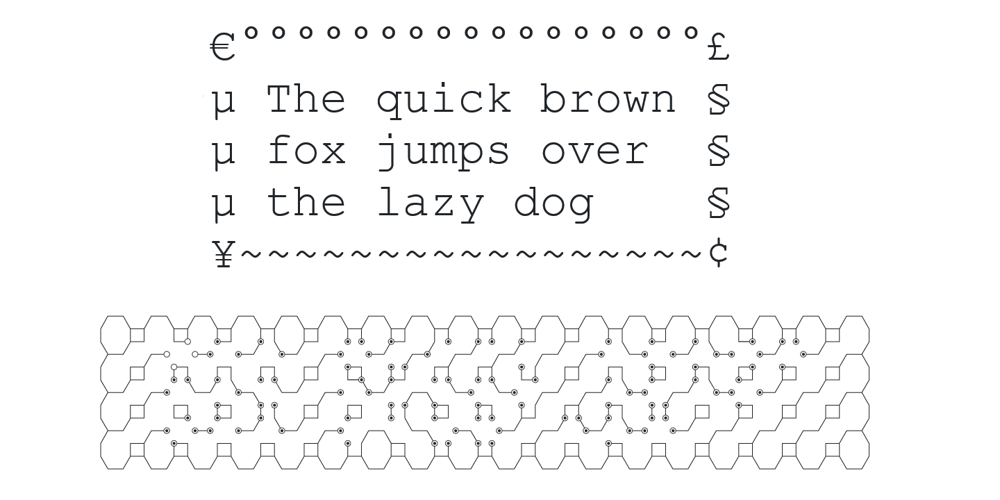
Hex Braille Font Family was designed by Michel Kern and published by Echopraxium. Hex Braille contains 1 styles and family package options. The purpose of this monospace font is to display braille in an original although rather steganographic way.Its glyphs are built from a flat hexagon which can be read as 3 rows of 2 vertices (i.e. regular braille glyph grid). The initial design is illustrated by glyphs ‘ç’ (no dot) and ‘û’ (6 dots) as shown by poster 5. Glyphs are connected to each other, thus 6 connections for each hexagon (2 on left/right and 4 on top/bottom). In the final design many diagonal segments of the hexagon were removed for esthetical reason. Text is displayed not as a honeycomb but as a lattice instead which mixes hexagons, squares and “irregular convex octagons” (mostly unclosed), the design favored squares over octagons. The whole slightly resembling a PCB.Text can be framed with 3 sets of Frame glyphs (as shown in Poster 4): Octagonal: { €, °, £, µ, §, ¥, ~, ¢ } which can be mixed with Rectangular High Rectangular Low: { è, é, ê, ï, î, à, â, ä } Rectangular High: { Â, ù, Ä, Ê, Ë, ô, õ, ë } which can be mixed with Octagonal NB: When using Frame glyphs, it is advised to show Pilcrow (¶) and Non Breaking Space, which are replaced by empty shapes (e.g. in Microsoft Word, use CTRL+8 or use [¶] button in the ribbon).